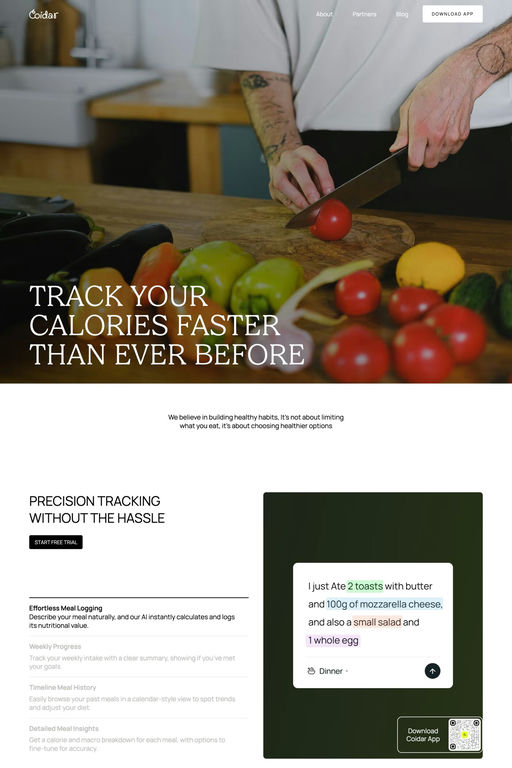
Gelica is a serif typeface from Eclectotype.
Designed by Dave Rowland, Gelica is a retro and serif font family. This typeface has fourteen styles and was published by Eclectotype Fonts.
A1 features 1 website using Gelica. It leans towards Photography, Display font, and Pastel design styles, and it’s most often built with Webflow.